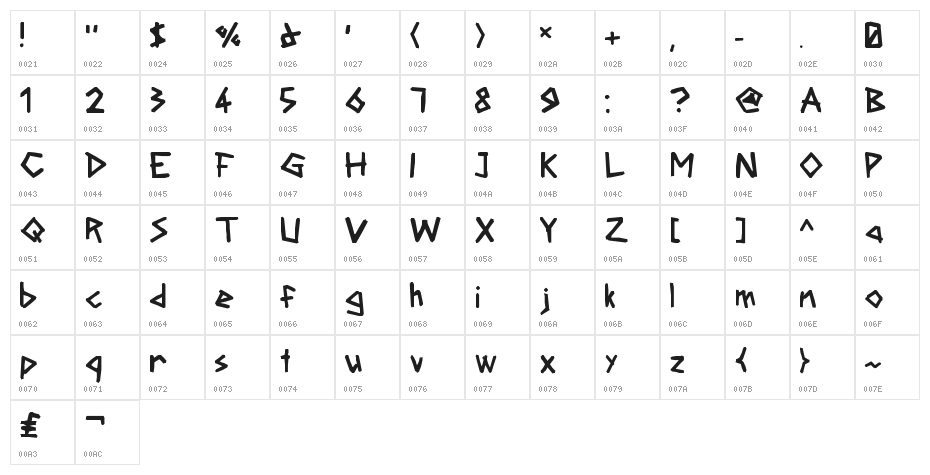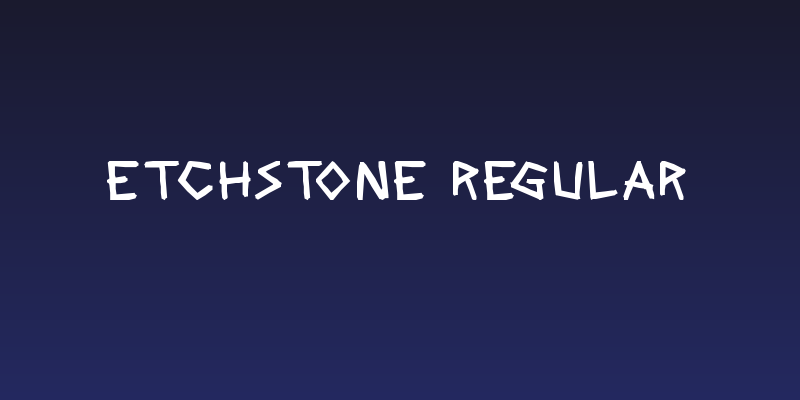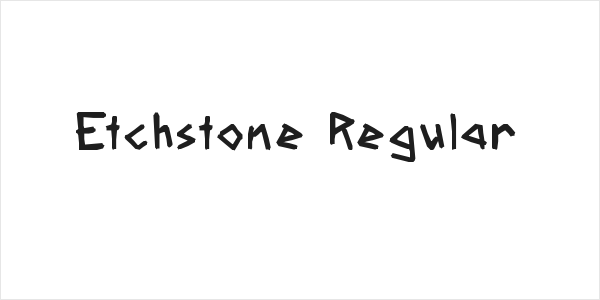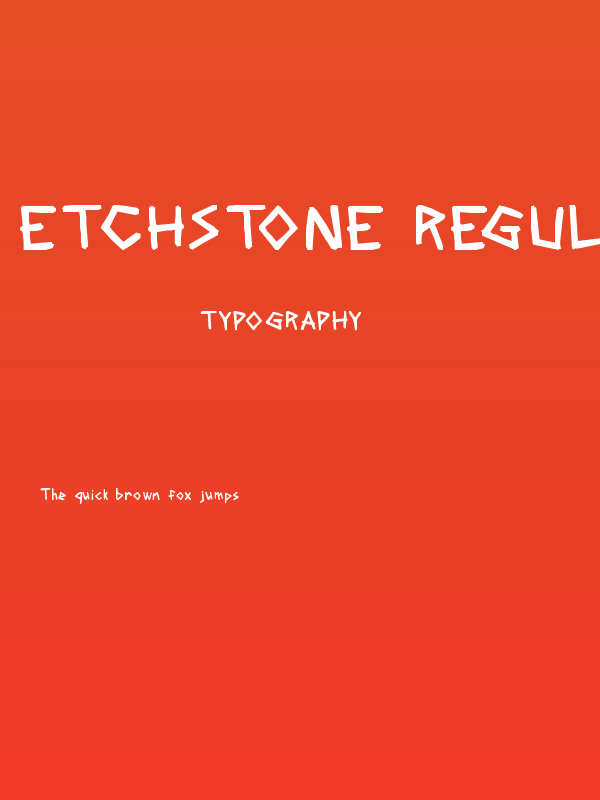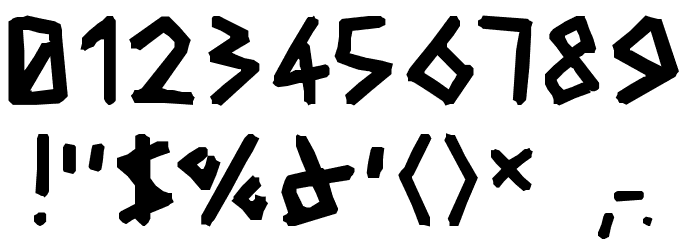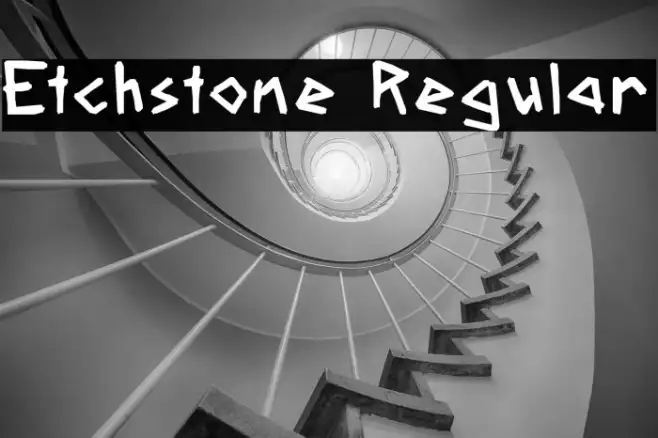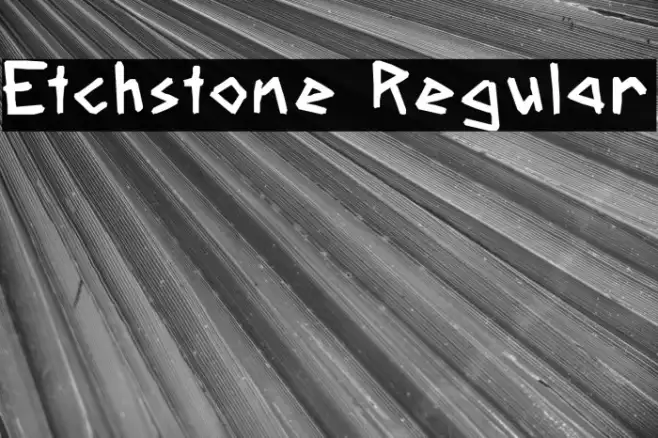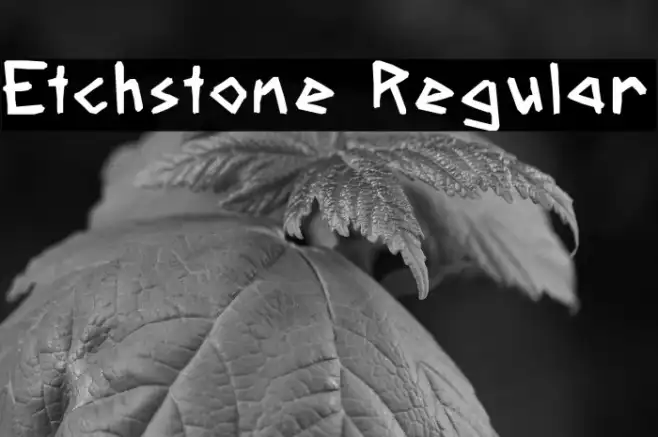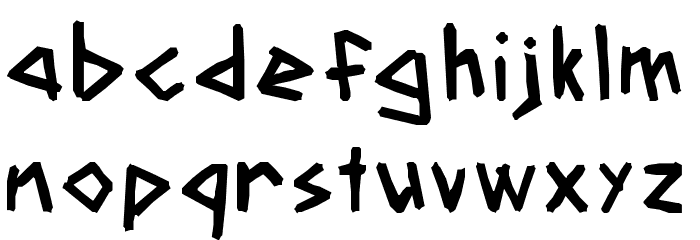
Etchstone Regular Font
Etchstone Regular Description
This font features a bold, hand-drawn style with irregular, jagged edges that give it a dynamic and energetic appearance. The uppercase and lowercase letters maintain a consistent height, creating a uniform look despite the playful and slightly chaotic design. The numbers and special characters follow the same aesthetic, with angular lines and a rough texture that adds to the overall handcrafted feel. This font is ideal for projects that require a casual, artistic touch, such as posters, flyers, or creative branding materials.
| Proposed Projects | Ideal for posters, flyers, creative branding, and any project needing an artistic touch. |